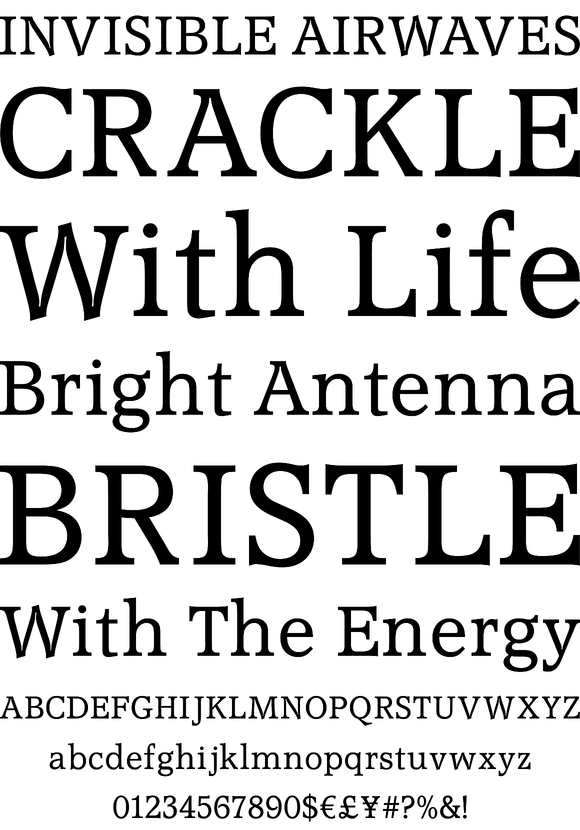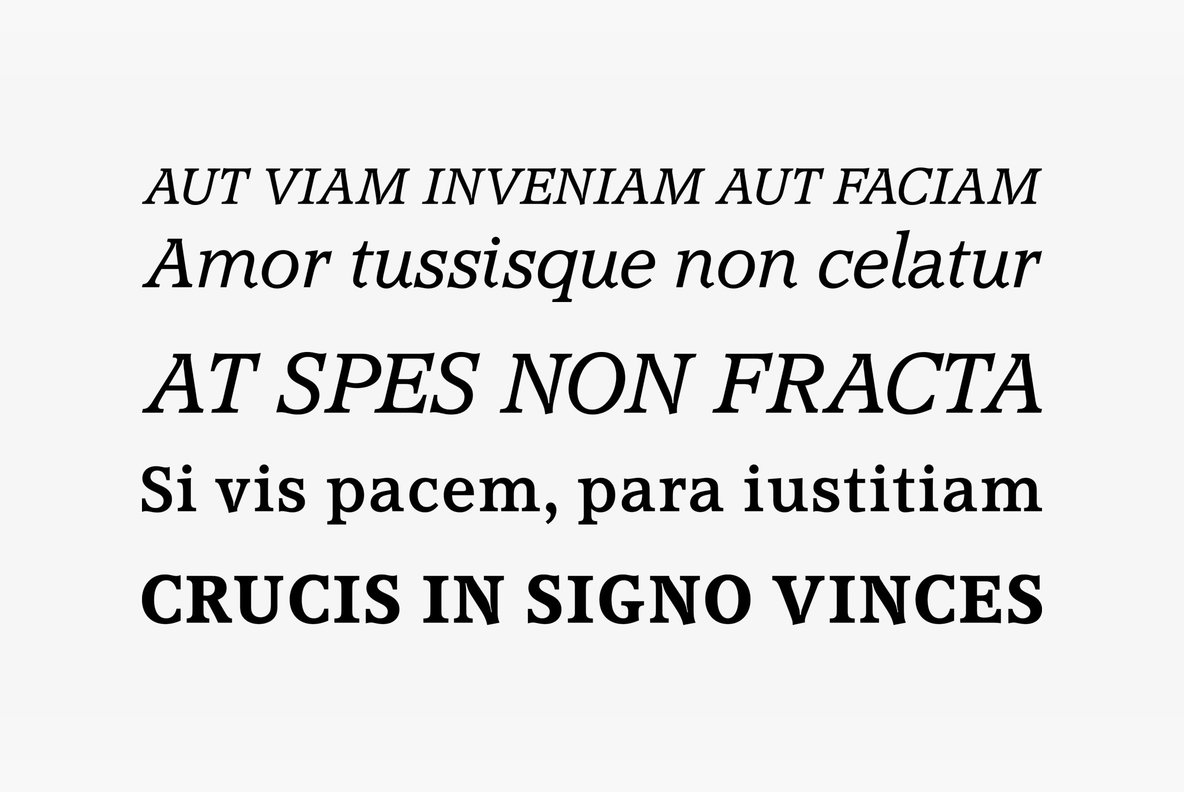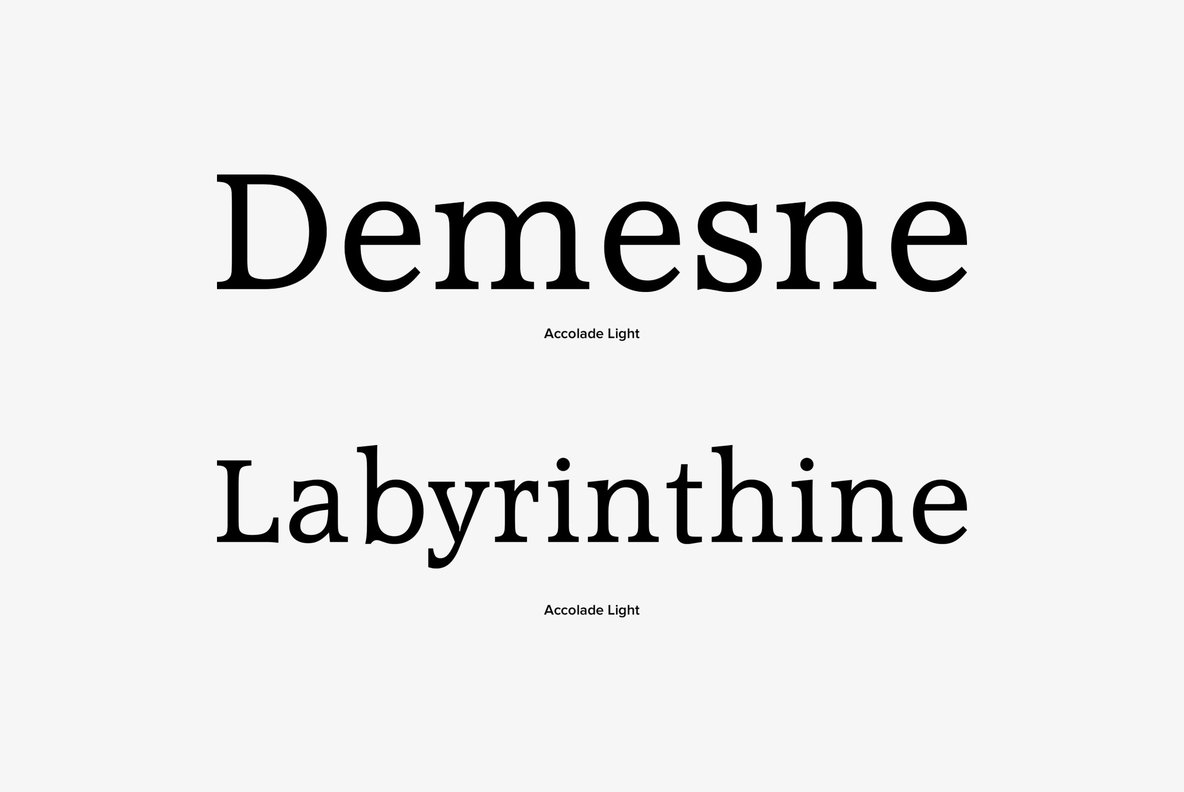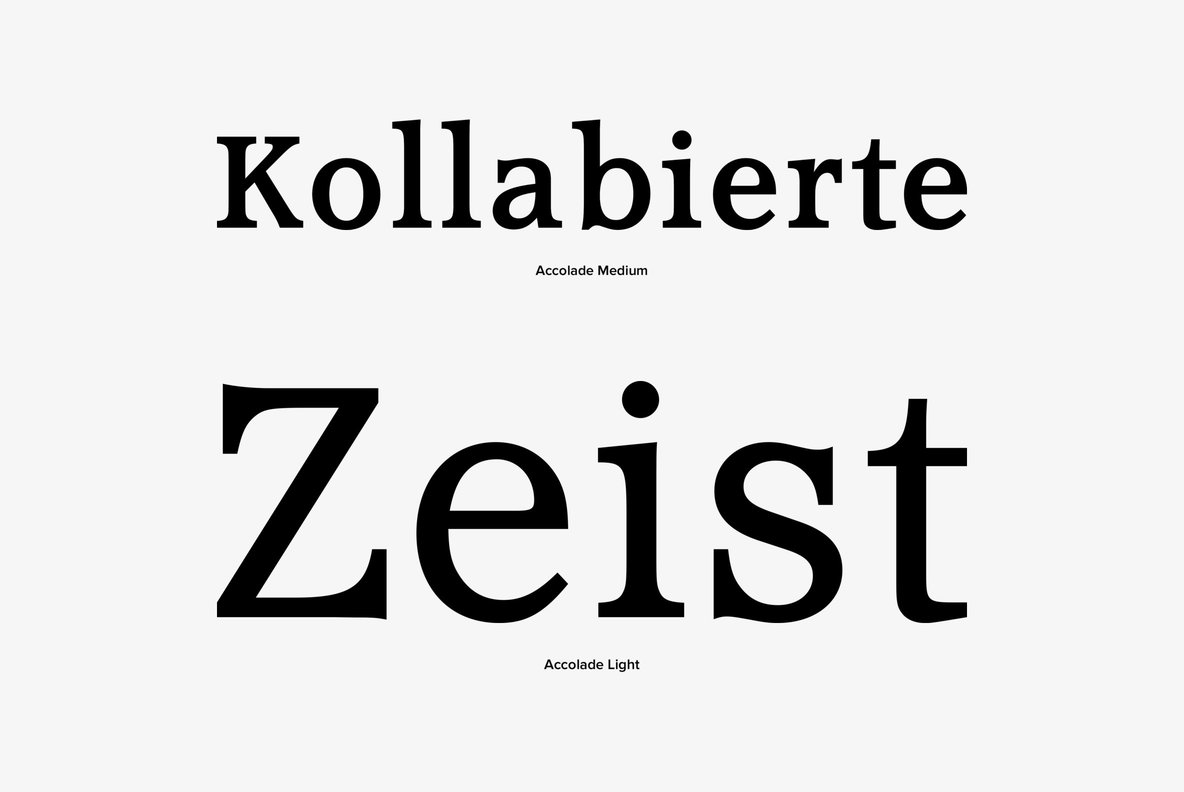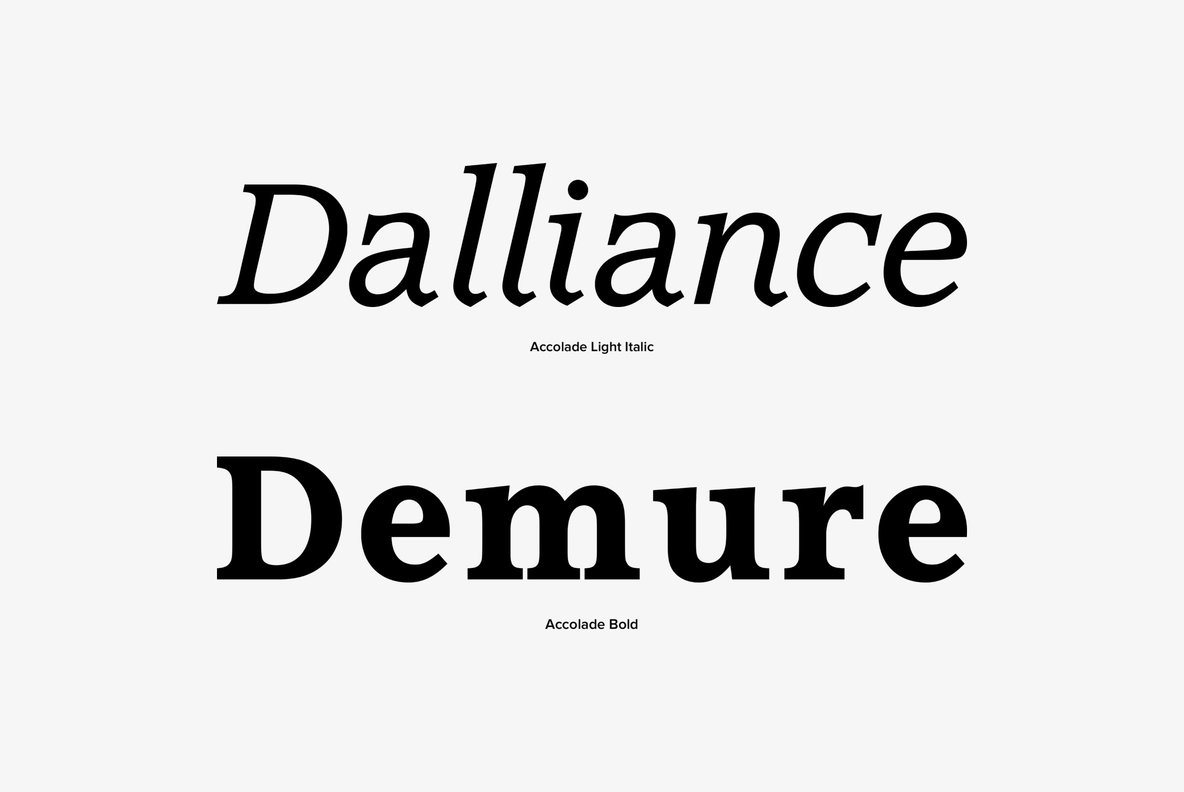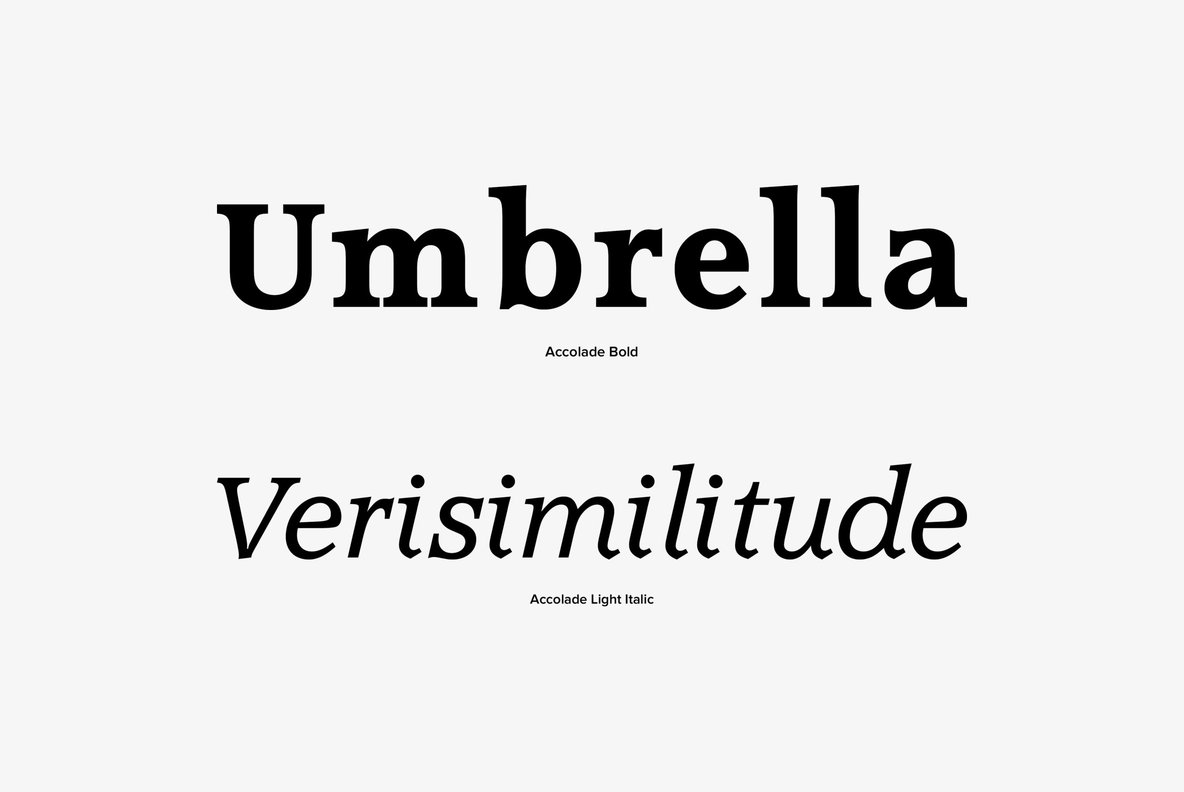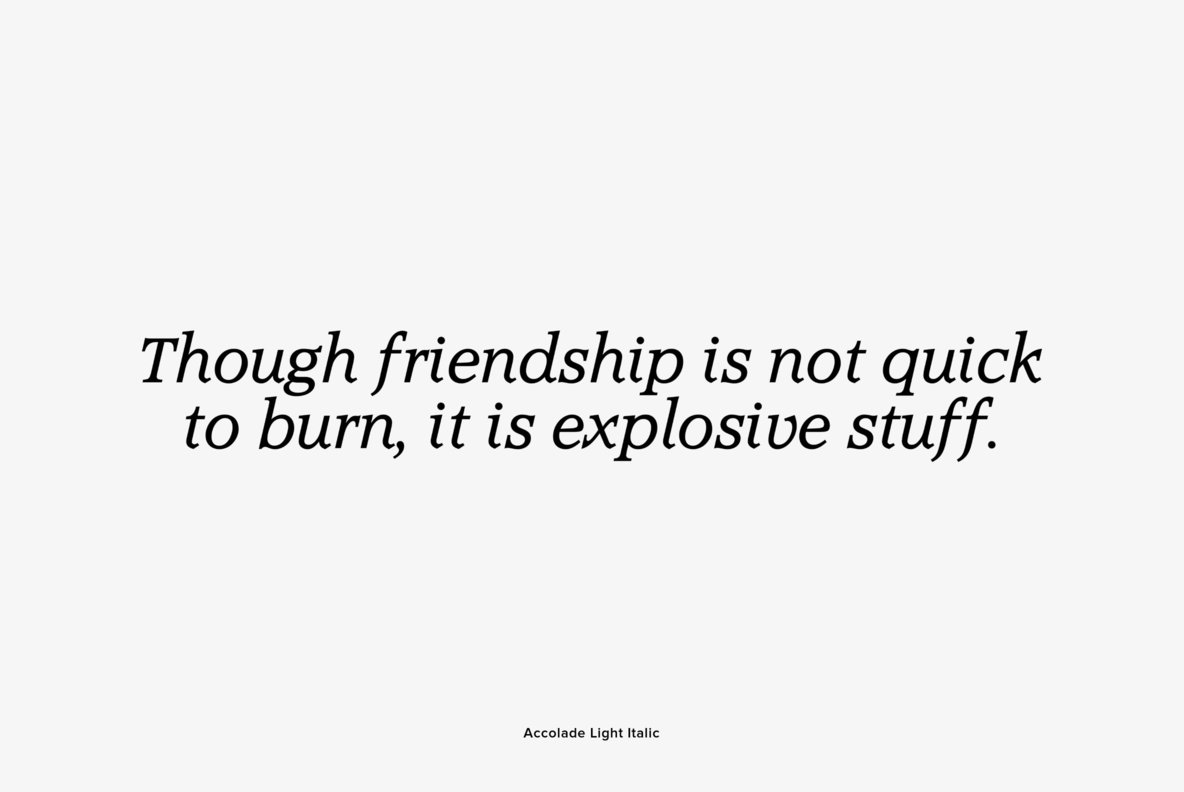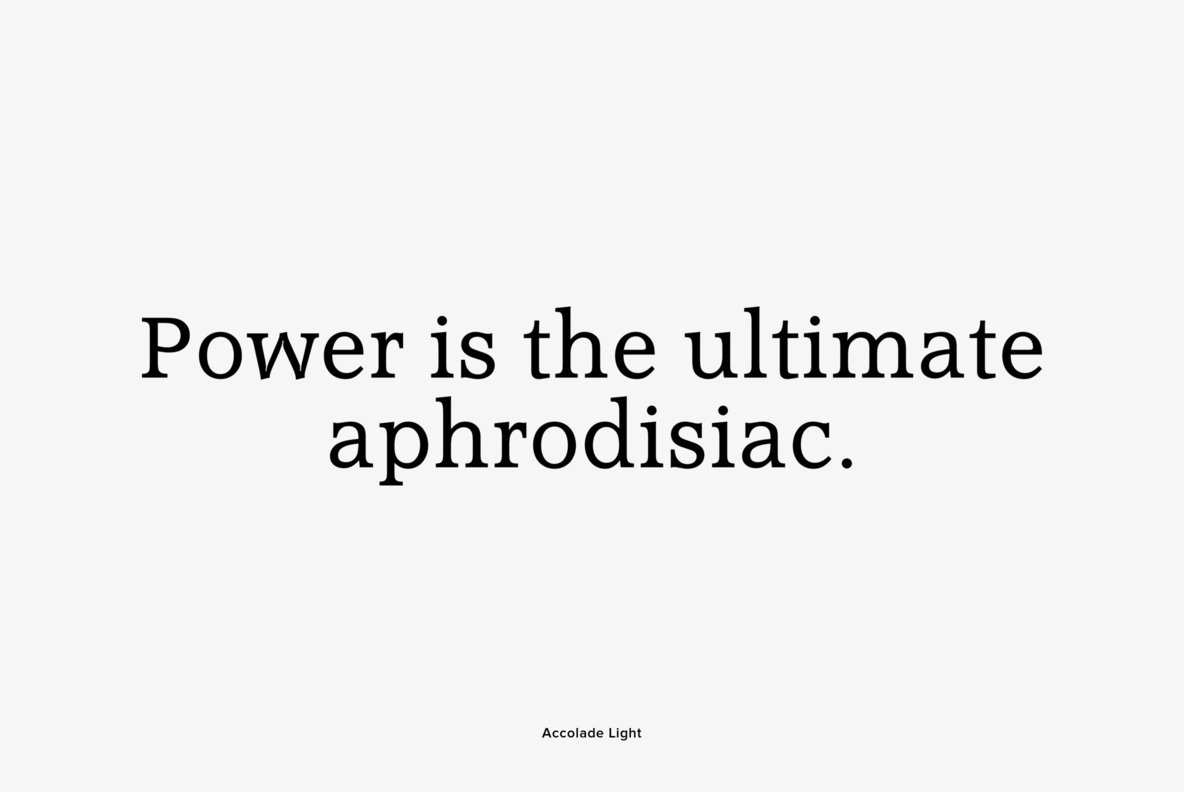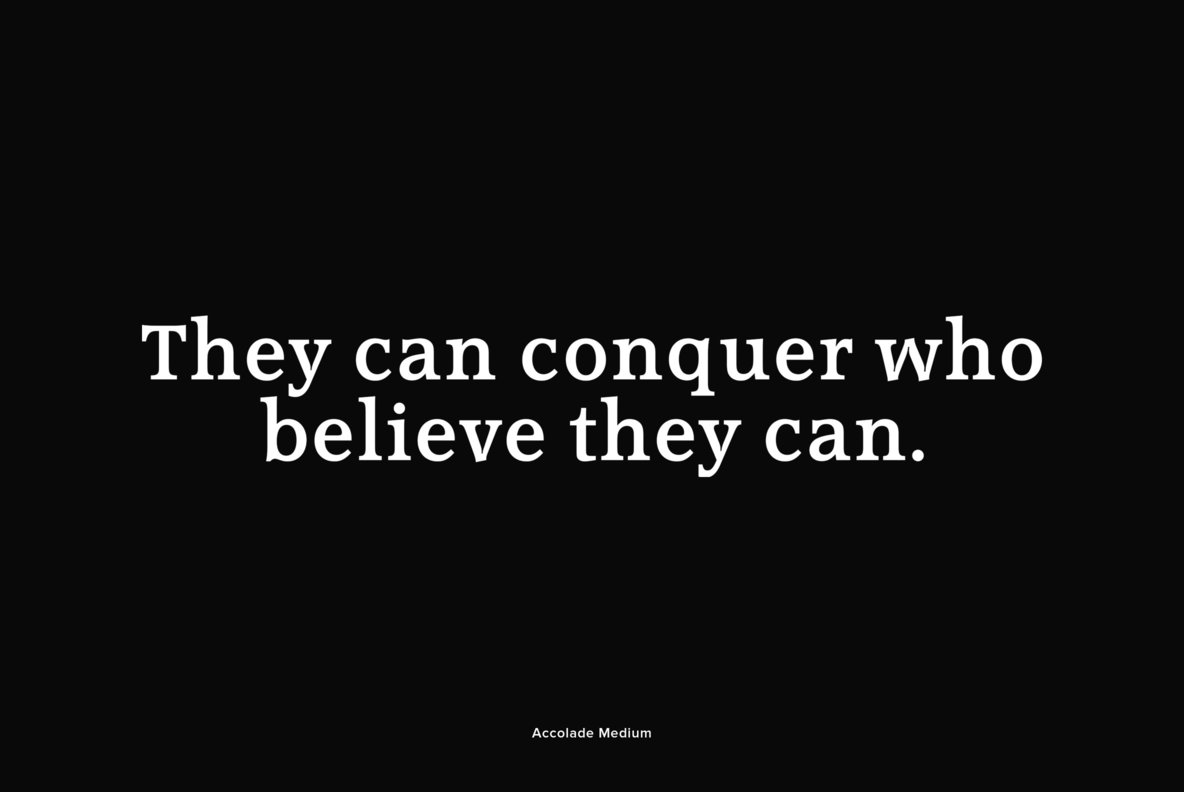
Accolade
Designed by Chew Loon in 1979, Accolade is an elegant and formal serif design. It contains support for West, East, Turkish, Baltic, Romanian languages.